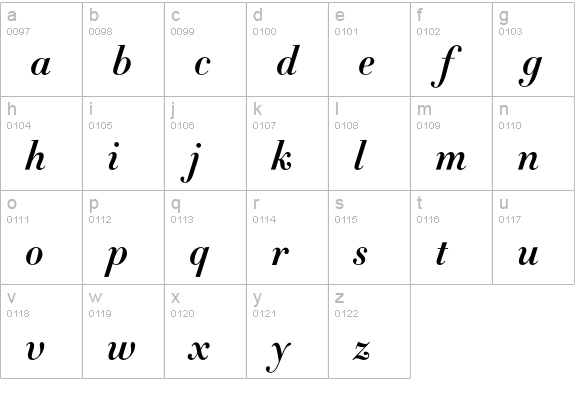
Didot-HTF-B11-Bold-Ital Font Details
Didot-HTF-B11-Bold-Ital is a strong, high-contrast variant in the Didot typeface family \xE2\x80\x94 well suited to headlines, attention-grabbing titles, and strong calls-to-action.
Didot-HTF-B11-Bold-Ital is a stunning and elegant font that exudes sophistication and style. Its bold and italic design makes it perfect for adding a touch of luxury to any project. The high contrast between thick and thin strokes creates a visually striking appearance that commands attention. This font is ideal for use in headlines, logos, and other prominent design elements. The best part? Didot-HTF-B11-Bold-Ital is available for free download at FontsMarket.com. This means you can easily access this beautiful font and use it in your creative projects without any cost. Don't miss out on the opportunity to enhance your designs with the timeless beauty of Didot-HTF-B11-Bold-Ital. Download it now and elevate your typography game!